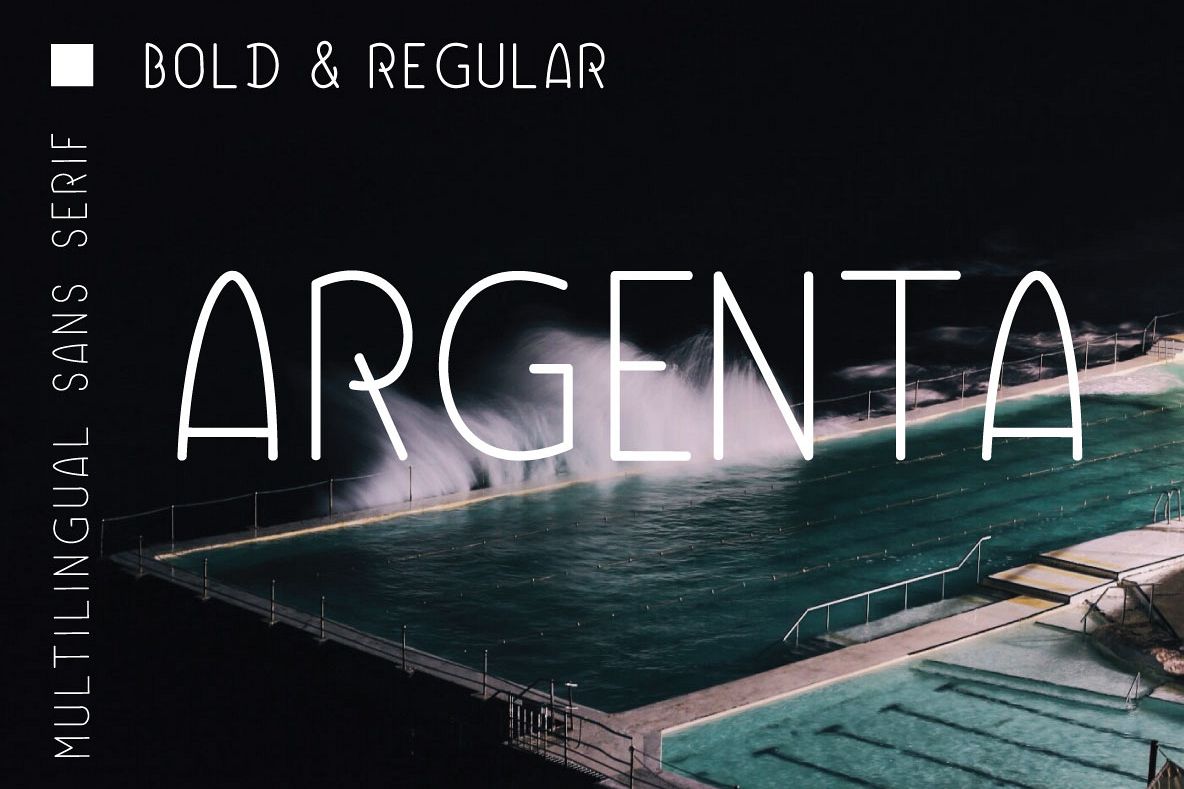
Argenta
Argenta is an elegant, friendly and versatile multilingual sans serif font with soft, rounded edges.
It is easily readable that's why it is perfect for longer texts, quotes but also for wedding invitations and menus. It matches beautifully with scripts fonts too.
It comes with extensive language support.
-Multilingual support for the following languages included: English, French, Italian, Spanish, Portuguese, German, Swedish, Norwegian, Icelandic, Danish, Dutch, Finnish, Hungarian and Estonian and more! (if something is missing or you've got a request please let me know)